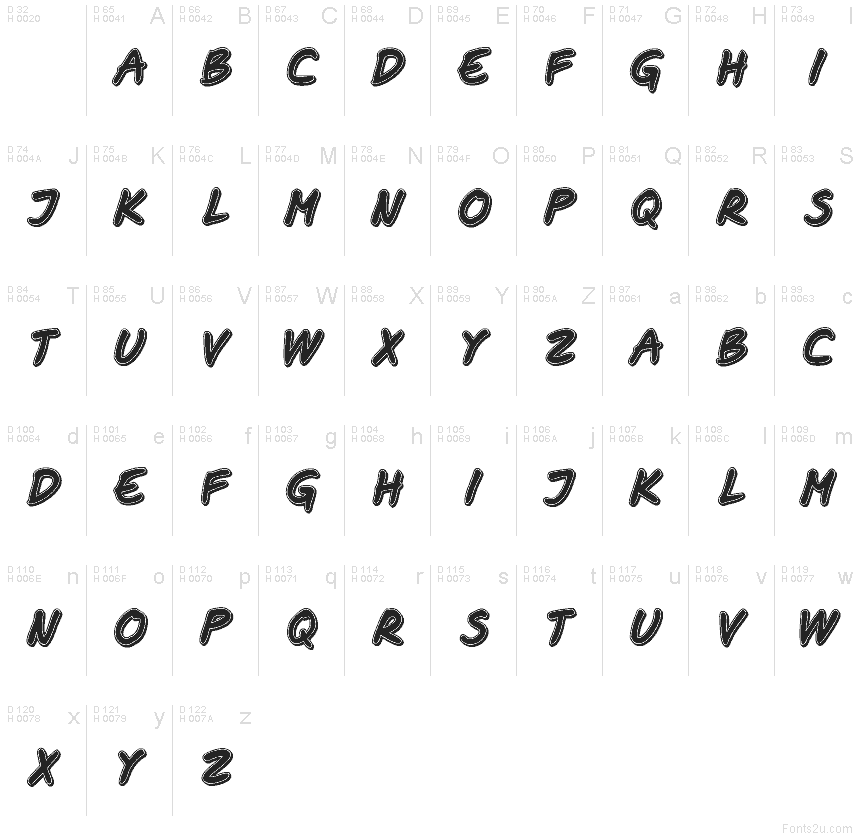
Diana Italic
Diana italic font by Vladimir Nikolic combines graffiti-inspired style with a decorative brush handwriting. The slanted characters feature bold strokes with sudden thin transitions making them simultaneously modern and casual. Retro signs that usually come in typeface shapes like this one also heavily influence the overall look.
Free in its most basic weight, the font provides a great result for greetings cards, quotes, posters, branding designs like logos or packaging etc. It can further fit invitation cards for special occasions and not-so-formal editorials. Businesses can use it to write on badges too!